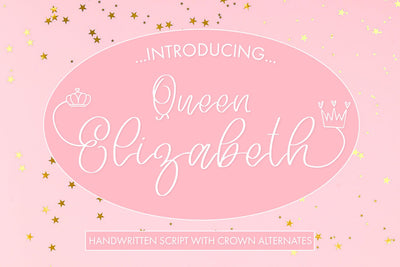
Queen Elizabeth - A Royal Script Font
Introducing "Queen Elizabeth," a regal handwritten script font fit for royalty. This enchanting typeface exudes elegance and grace, reminiscent of a majestic era. With its captivating stylistic alternates, each letter is adorned with one of three exquisite crowns, adding a touch of royal splendor. "Queen Elizabeth" is the perfect choice for all the princesses out there, allowing you to express your inner nobility and embrace your own majestic journey. Let this font adorn your designs with the grandeur they deserve.
This font can be used for anything such as T-Shirt designs, phone cases, greeting cards, invitations, mugs and so much more! Be creative but most importantly have fun!
- Queen Elizabeth - Comes with Uppercase A-Z and lowercase a-z letters, 0-9 numbers, stylistic alternates, limited punctuation and supports Western European Languages